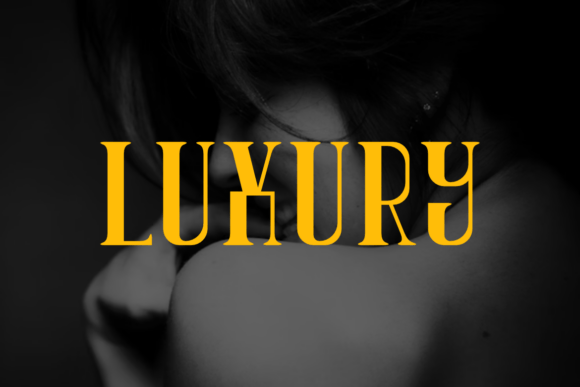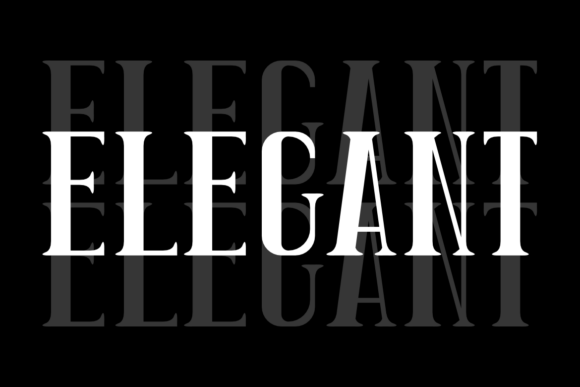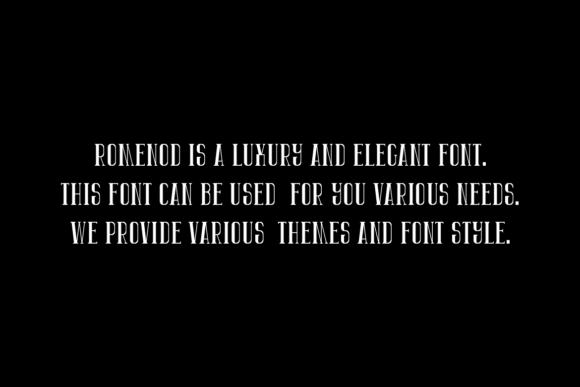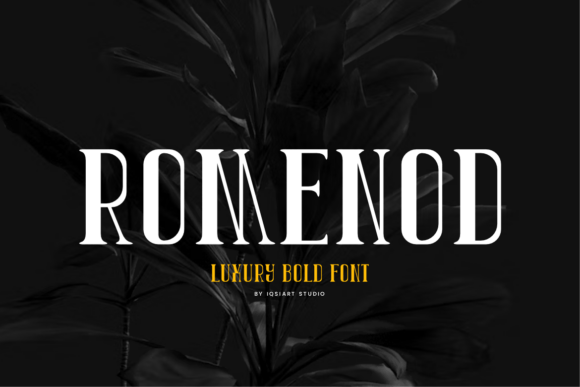
Introduction to Romenod Font
The Romenod font is a luxury bold serif typeface designed to command attention with refined elegance.
Its high-contrast letterforms combine classical vertical serifs with elongated, narrow stems, creating a dramatic and fashionable presence ideal for premium branding The font evokes a modern vintage aesthetic through its symmetrical proportions and sharp, tapering terminals, lending sophistication to editorial titles, logos, and packaging.